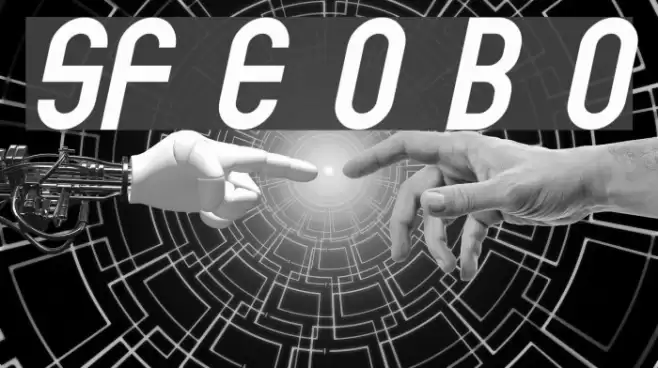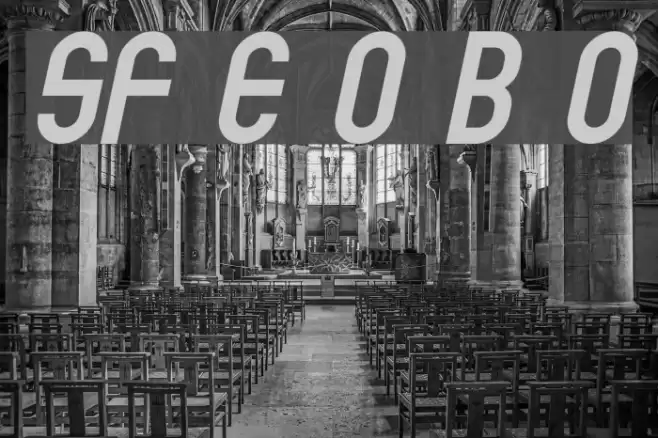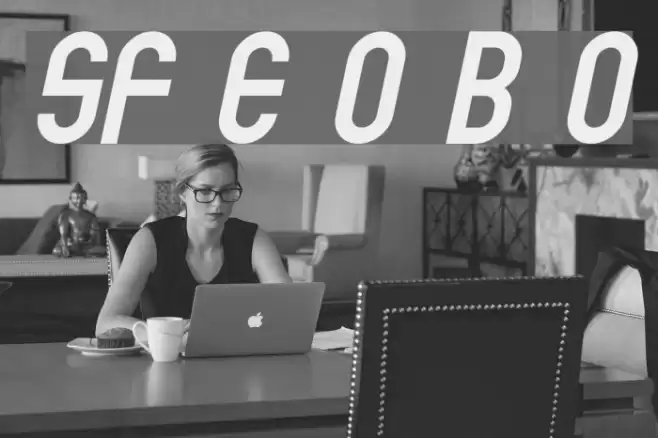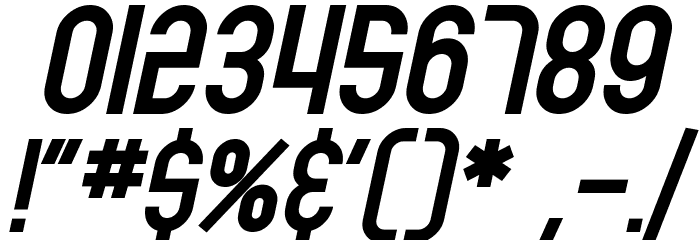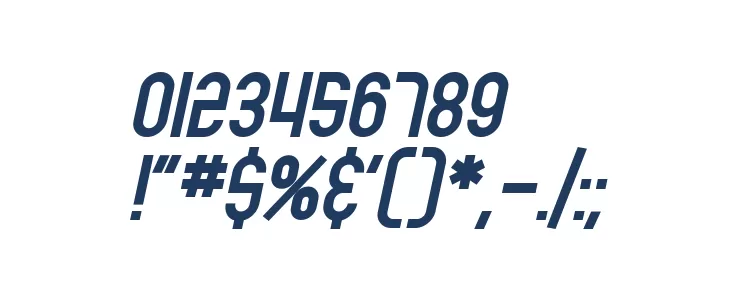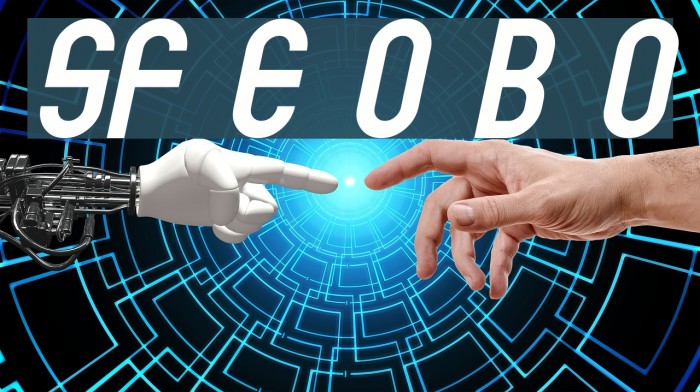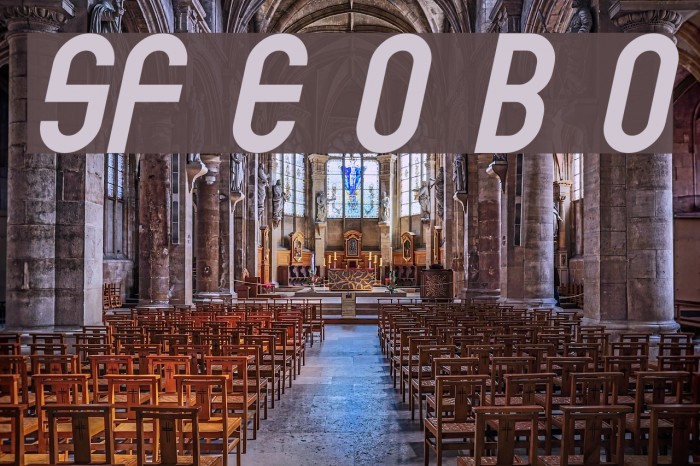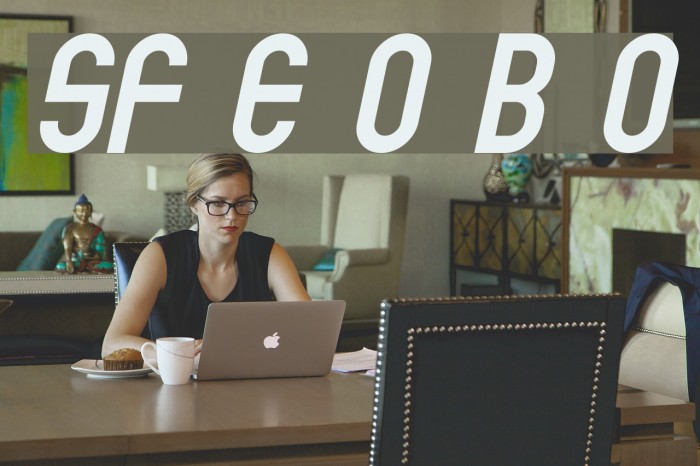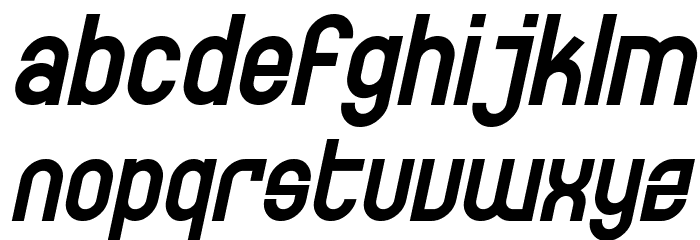
SF Eccentric Opus Bold Oblique Font
SF Eccentric Opus Bold Oblique Description
This font features a bold and oblique style with a modern and eccentric flair. The characters are elongated with a slight slant, giving them a dynamic and forward-moving appearance. The uppercase and lowercase letters maintain a consistent height, while the numerals are bold and easily distinguishable. Special characters are uniquely styled, adding to the font's overall quirky and distinctive look. The font's design is both eye-catching and readable, making it suitable for various creative applications.
A bold, oblique, and eccentric font with a modern twist from Modern fonts.